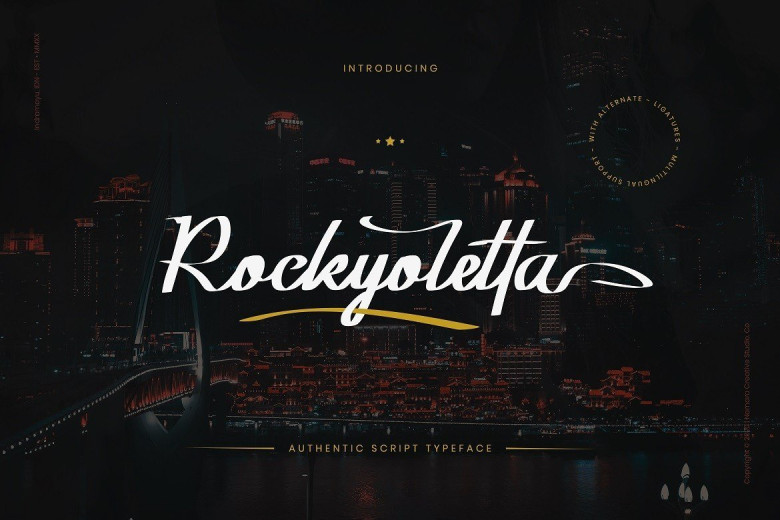
Rockyoletta Calligraphy Script Font
Introducing Rockyoletta Font! A unique, stylish calligraphy script font with a personal charm. With many alternate style, Rockyoletta Font is perfect for photography, watermark, social media posts, advertisements, logos & branding, invitation, product designs, label, stationery, wedding designs, product packaging, special events or anything that need calligraphy or handwriting taste.